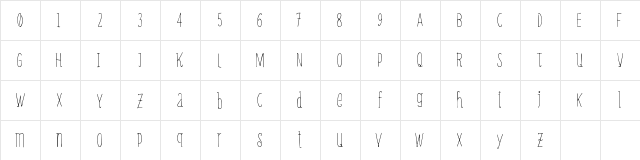
PrinceCharming Regular
| Foundry | Xerographer Fonts |
| Designer | Max Infeld Xerographer Fonts |
Design Context for PrinceCharming Typeface
PrinceCharming is a composed and adaptable typeface that performs quietly and consistently across a wide range of design contexts.